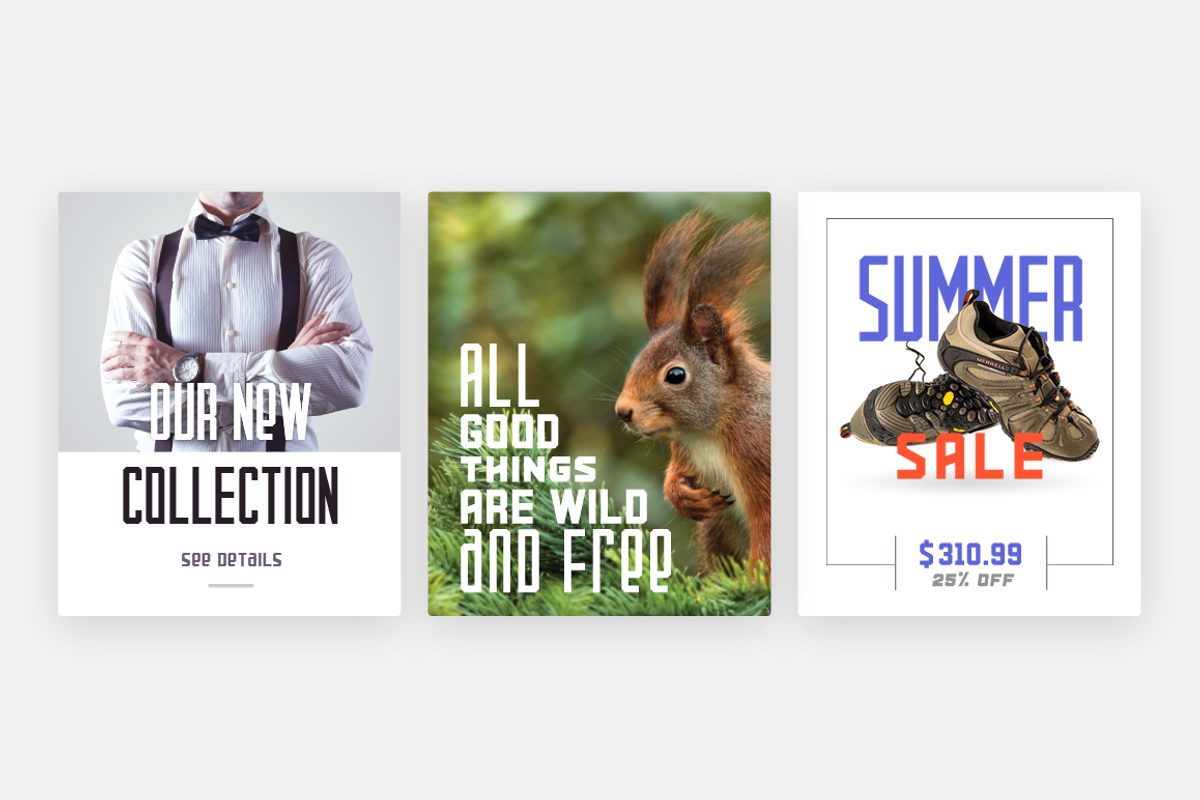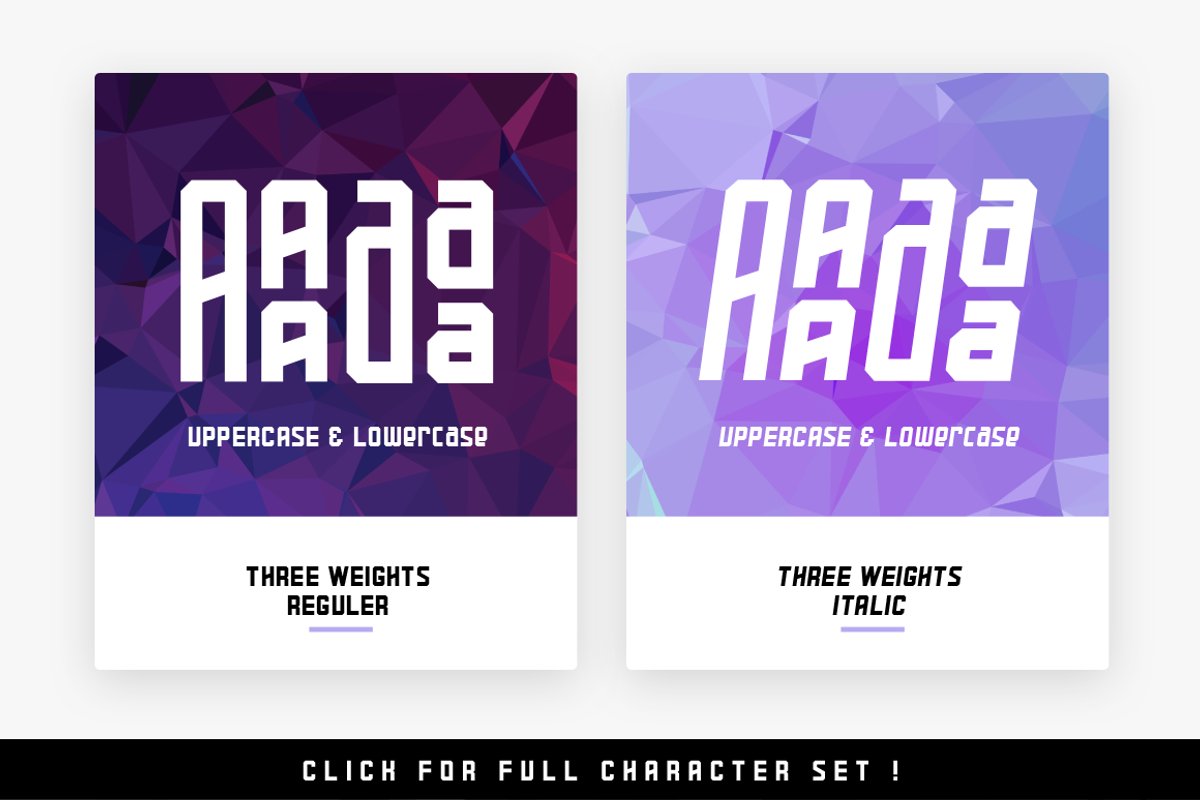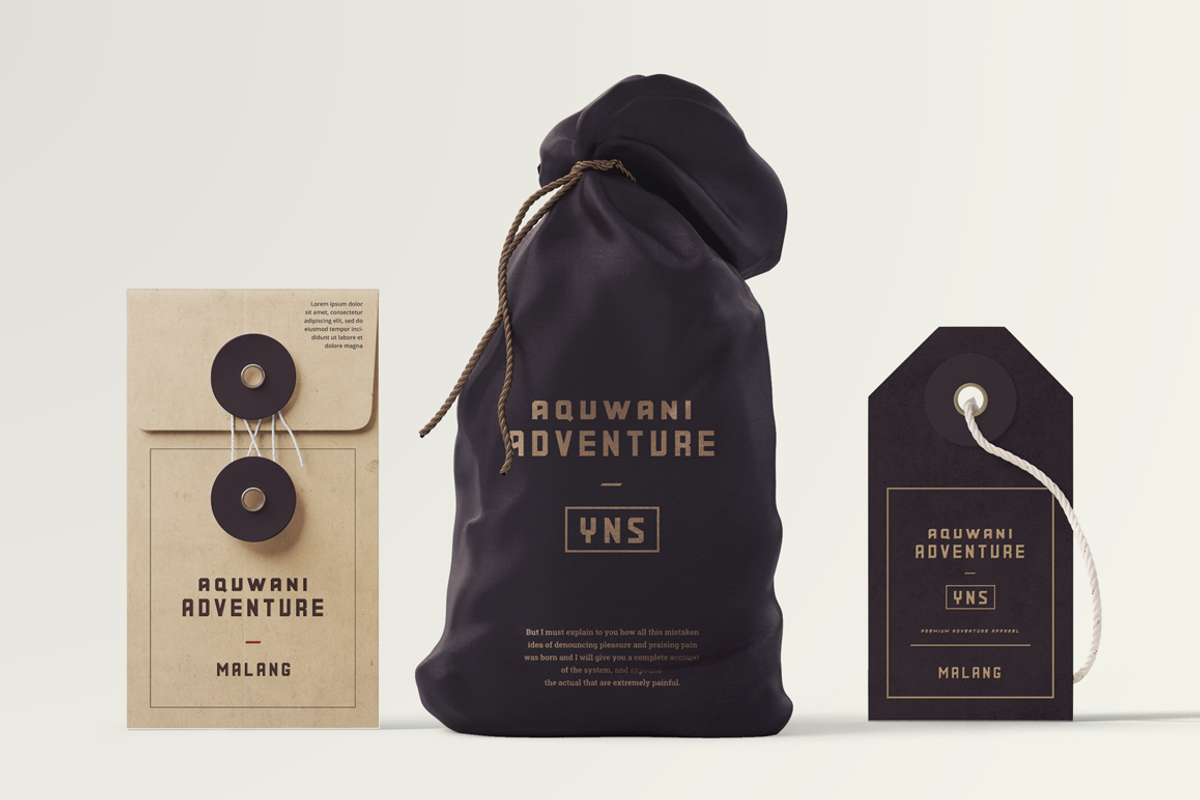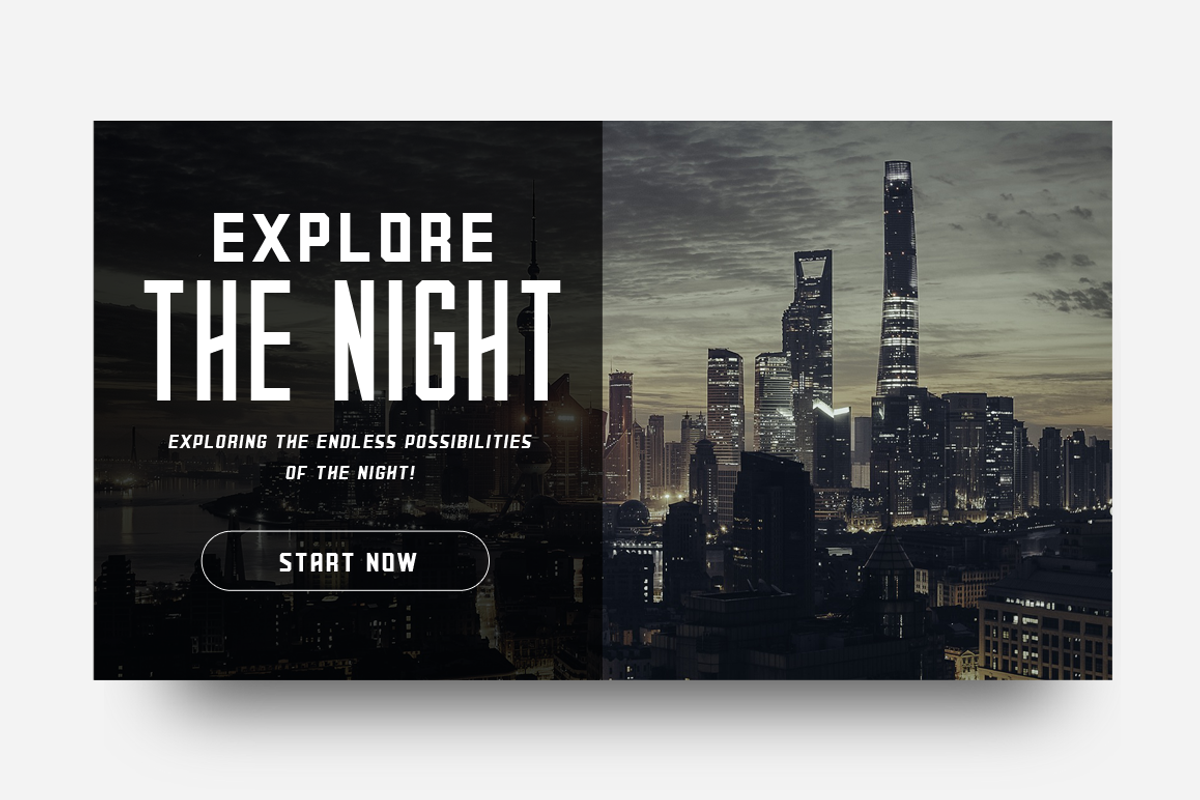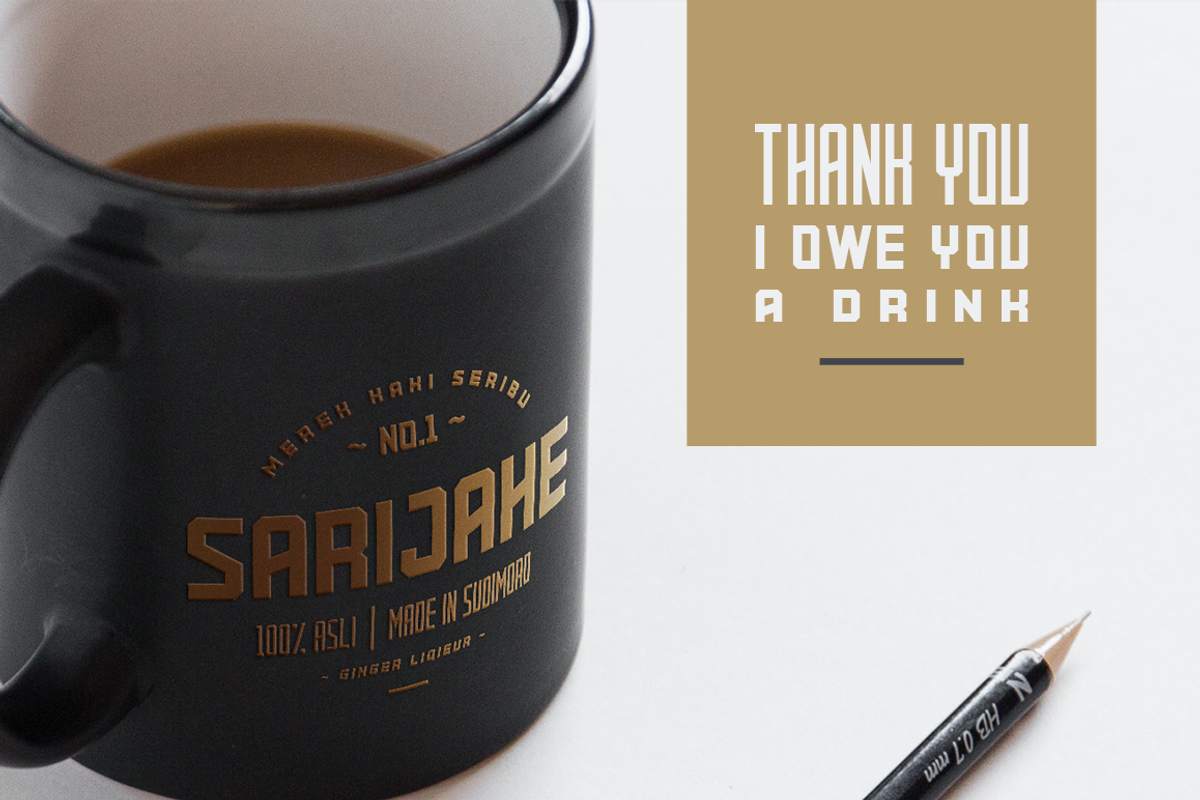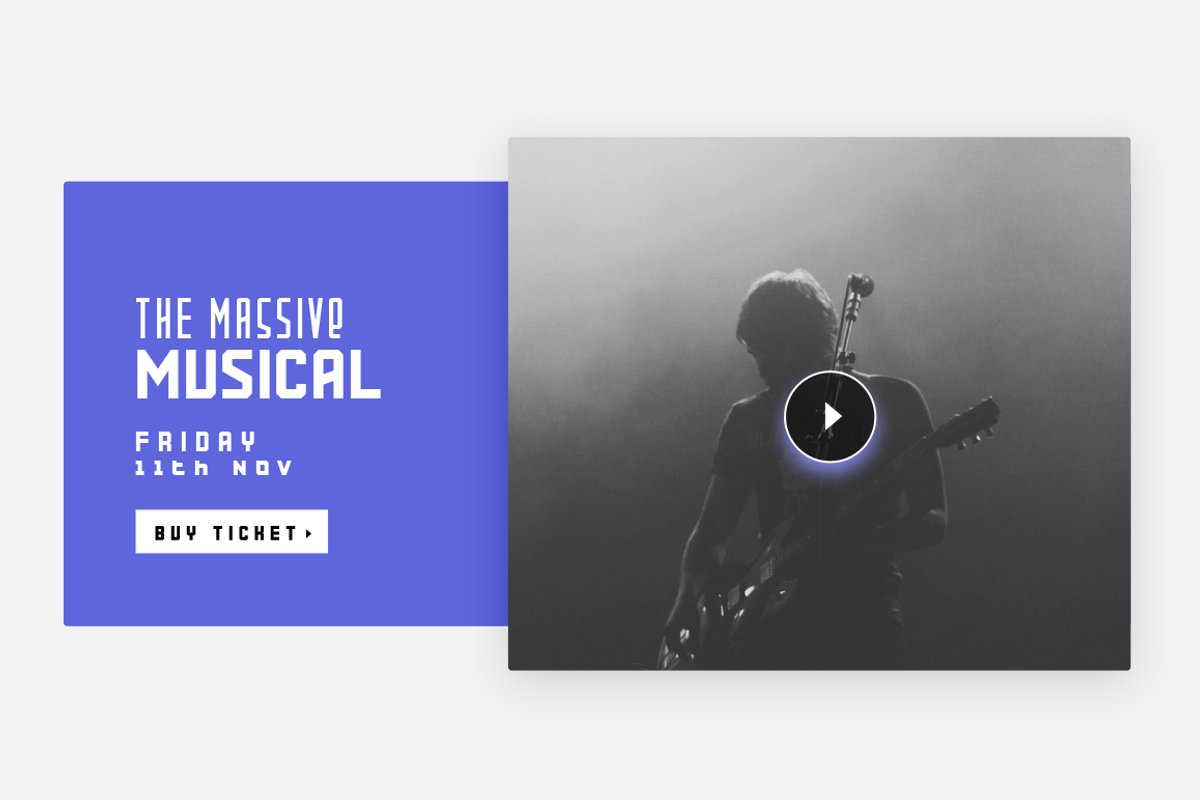
Glorynight Family - 6 fonts
Glorynight Family - 6 fonts by Typia Nesia is a font selected for branding, posters, packaging, typography.
Why Glorynight Family - 6 fonts is worth a look
Glorynight Family - 6 fonts by Typia Nesia fits naturally into Branding, posters, packaging, typography.